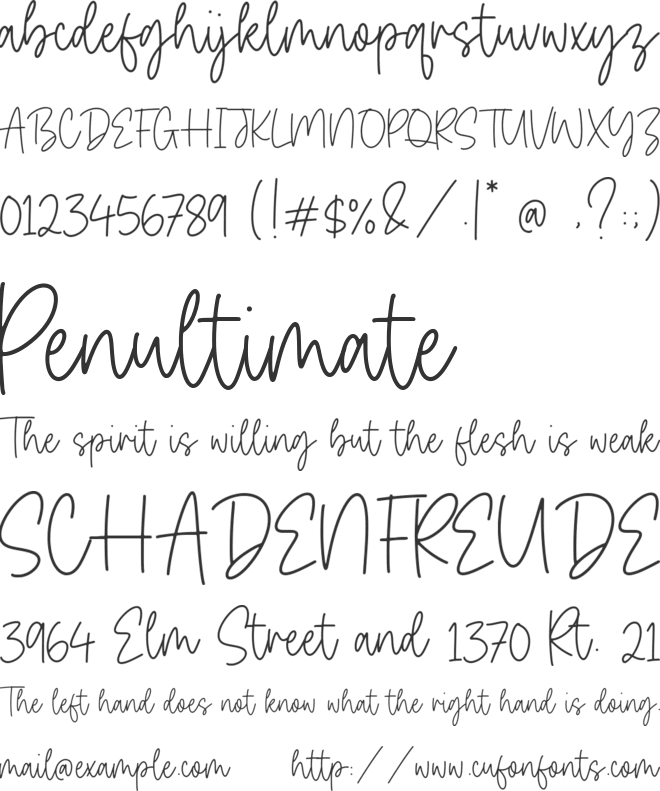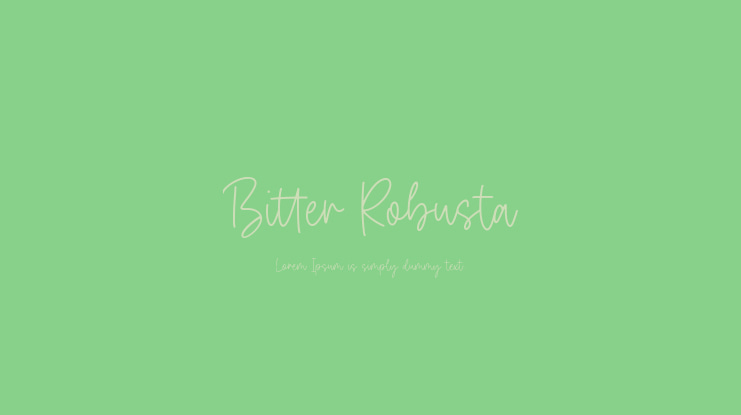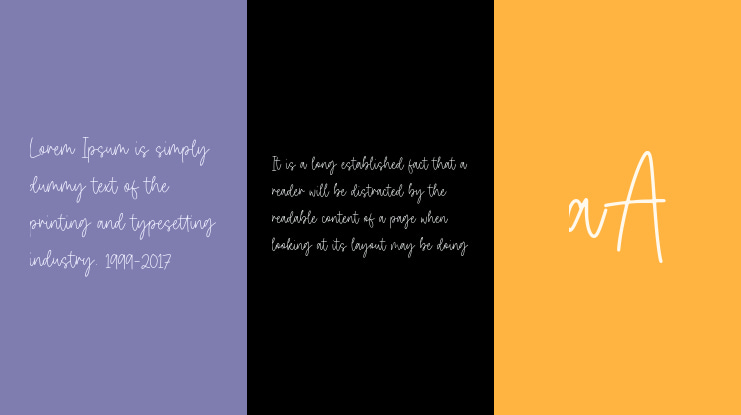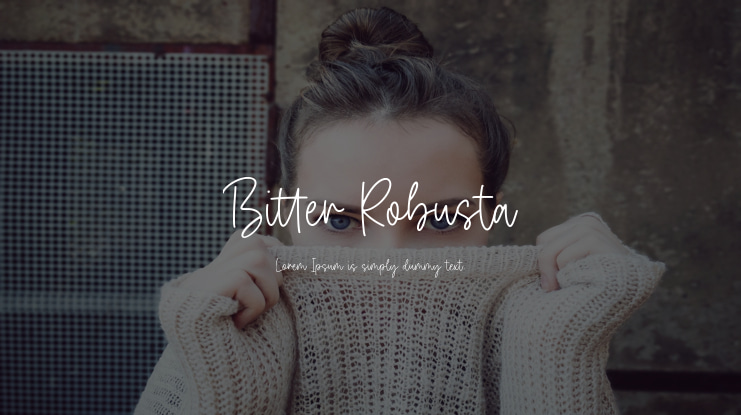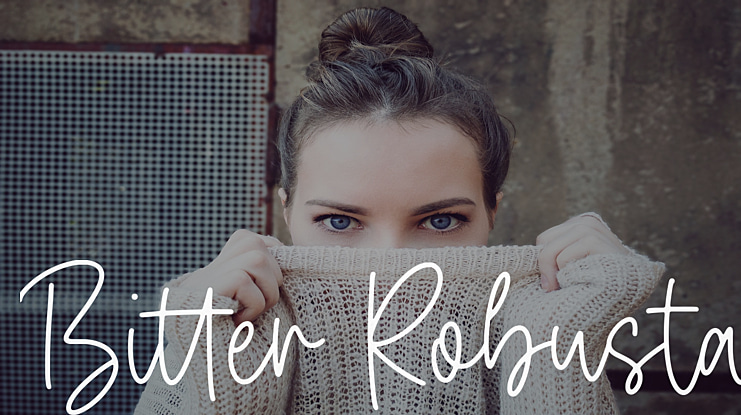
Bitter Robusta Font
Introduced by Timur type
Proudly Present Bitter Robusta
Bitter Robusta Handwritten font that is modern and fresh, and will bring a warm and inviting feel to your business. Take advantage of the fonts and experience the magic for yourself.
Bitter Robusta is perfect for product packaging, branding project, megeenazine, social media, wedding, or just used to express words above the background.
Bitter Robusta Font Features premium :
-Full Set of standard alphabet and punctuation
– Bitter Robusta also multilingual support.